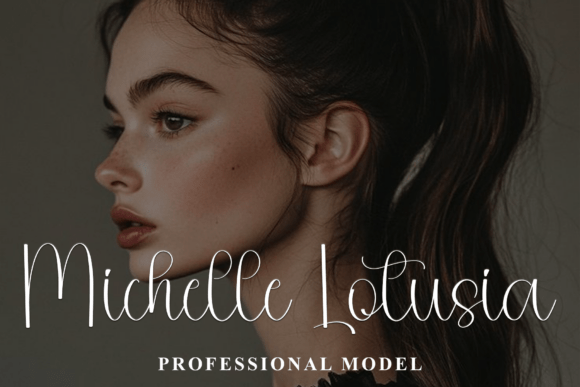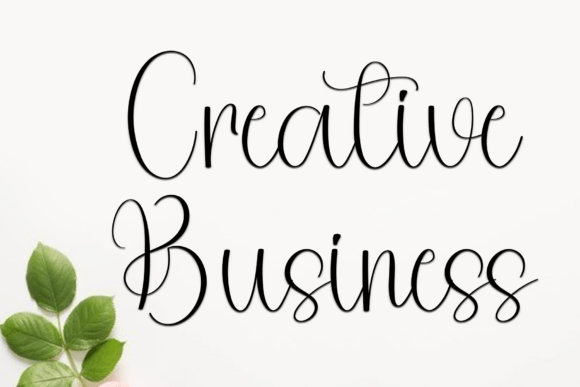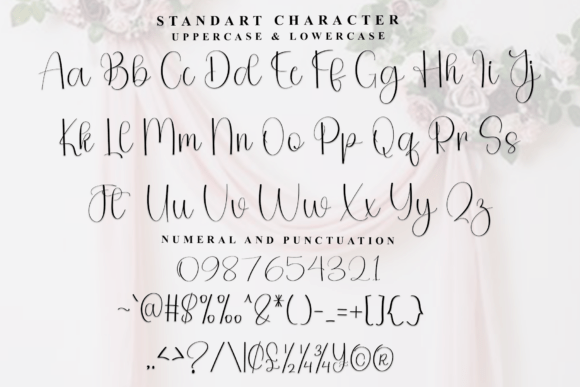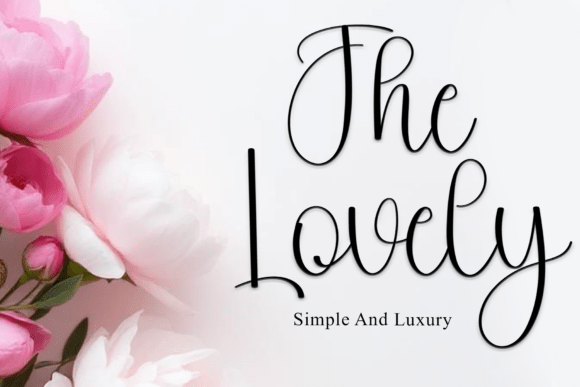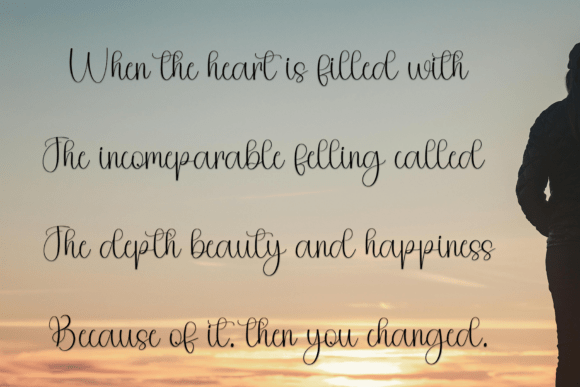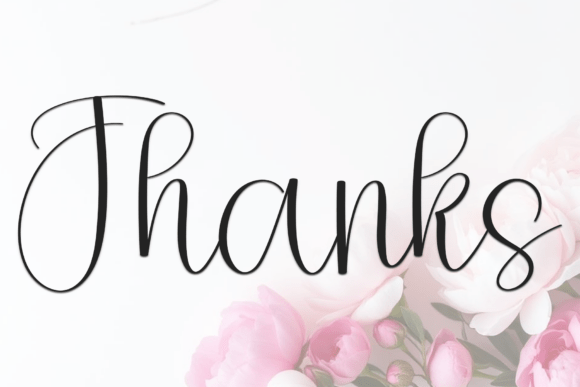
The Magic of the Holiday Season in Typography
As the snowflakes start to fall and the lights begin to twinkle, the holiday season is in full swing. And for many of us, it’s the perfect time to get creative and add some festive flair to our designs. Whether you’re making handmade cards for loved ones or crafting gift tags with a personal touch, the right font can make all the difference.
That’s where the Beauty Handmade Font comes in – a charming and whimsical typeface that captures the spirit of the holiday season. With its decorative elements and playful flair, this font is perfect for adding a touch of enchantment to your designs. And with its PUA encoding, you can access all of the amazing glyphs and ligatures with ease, making it a valuable tool for designers looking to add some holiday cheer to their work.
Key Features of Beauty Handmade Font
- Unique Characteristics: The font features a distinctive, hand-drawn design with subtle imperfections, giving it a charming, organic feel that sets it apart from more formal fonts.
Beauty Handmade Font Review
First off, I want to say that I was initially drawn to this font due to its unique, hand-drawn aesthetic. ✨ The subtle imperfections and flair of this font make it perfect for adding a touch of whimsy to designs.
- Its versatility – Beauty Handmade Font can be used for a wide range of projects, from branding and logos to editorial and advertising content.
- The variety of weights and styles available, which allows designers to create a cohesive look across different elements of a design.
- The font’s ability to evoke a sense of emotion and personality, making it a great choice for designs that require a touch of warmth and character.
- ⚠️ The font’s hand-drawn quality can sometimes make it difficult to read, particularly in smaller sizes or at a distance.
- ⚠️ Some of the letters and characters may be difficult to distinguish from one another, which can lead to readability issues.
Overall, I think Beauty Handmade Font is a great choice for designers who are looking to add a touch of personality and whimsy to their designs. While it may not be the best choice for every project, it’s definitely worth considering for designs that require a unique and emotional connection with the viewer.
To get the most out of the Beauty Handmade Font, try the following:
- Use it in combination with other handwritten fonts for a unique look.
- Use it for titles and headings to add a touch of elegance.
The Beauty Handmade Font is perfect for:
- Home decor and interior design projects.